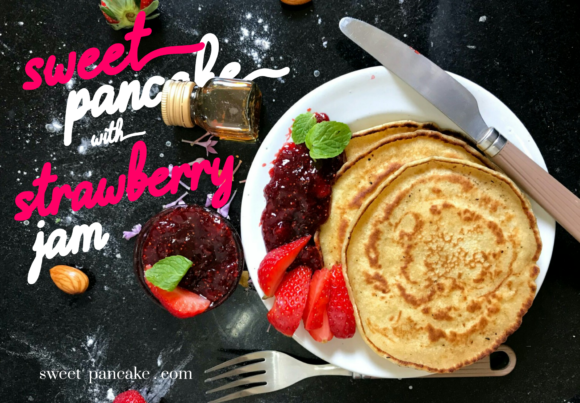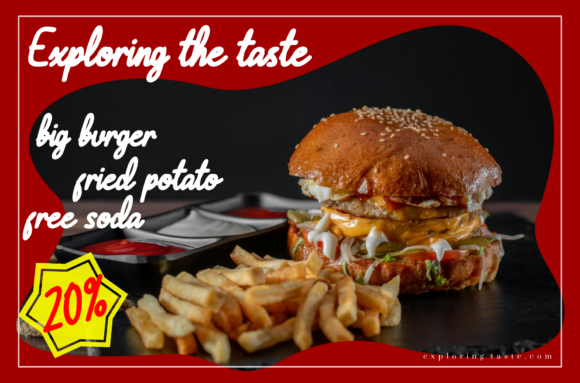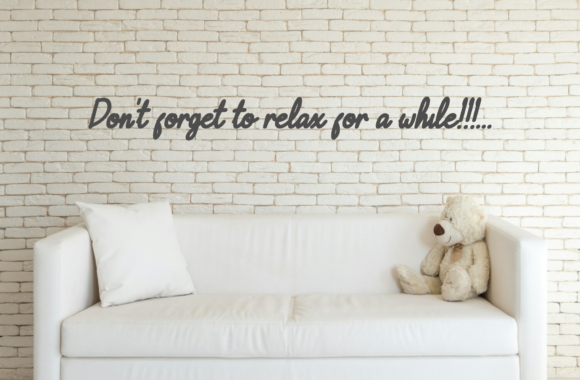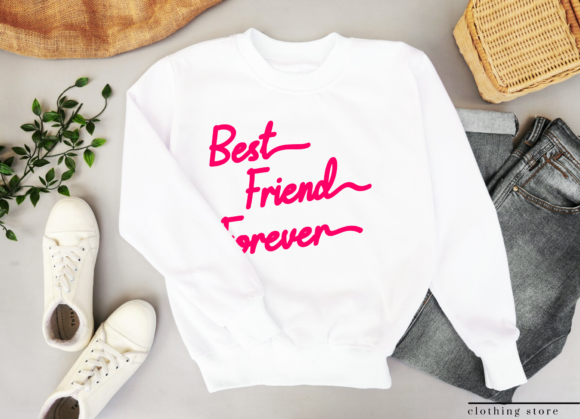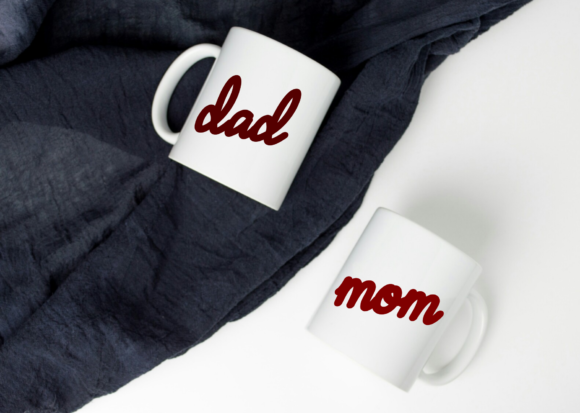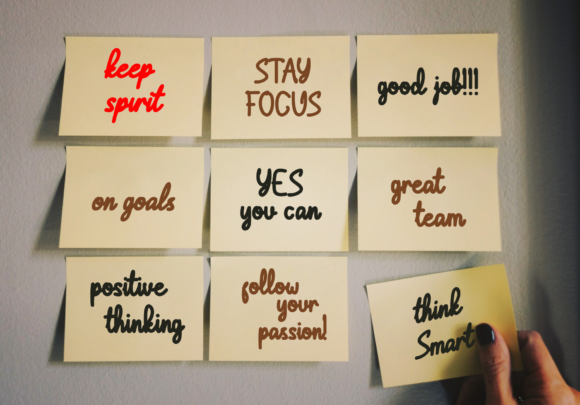
Introducing Dear Note Font: The Epitome of Elegance and Sophistication
In the realm of typography, few fonts manage to capture the essence of elegance and sophistication as Dear Note Font does. This stunning script font is a masterpiece of thin lettering and graceful strokes, designed to add a touch of luxury to any design project. Whether you’re a designer, crafter, or simply someone who appreciates the beauty of fine typography, Dear Note Font is sure to captivate your heart.
The Charm of Dear Note Font
Dear Note Font is a ravishing script font that exudes refinement and poise. Its thin lettering and delicate strokes evoke a sense of romance and whimsy, making it perfect for a wide range of design applications. From wedding invitations and stationery to social media posts and branding materials, Dear Note Font is the ideal choice for anyone looking to add a touch of sophistication to their designs.
One of the most exciting aspects of Dear Note Font is its versatility. This beautiful script font can be used in a multitude of design projects, including:
- Wedding Invitations: Create stunning wedding invitations that set the tone for a luxurious and unforgettable celebration.
- Stationery: Add a touch of elegance to your stationery, making it perfect for personal correspondence or business communications.
- Social Media Posts: Elevate your social media presence with eye-catching posts that showcase your brand’s personality and style.
- Branding: Use Dear Note Font to create a cohesive brand identity that exudes sophistication and refinement.
Why Choose Dear Note Font?
With so many fonts available, why choose Dear Note Font? Here are just a few reasons why this stunning script font stands out from the rest:
- Unique and Exclusive: Dear Note Font is a one-of-a-kind font that will set your designs apart from the crowd.
- Elegant and Refined: This beautiful script font is perfect for designs that require a touch of sophistication and luxury.
- Highly Versatile: Dear Note Font can be used in a wide range of design applications, from wedding invitations to social media posts.
- User-Friendly: This font is easy to use and pairs well with a variety of other fonts, making it perfect for designers of all skill levels.
Tips for Using Dear Note Font
To get the most out of Dear Note Font, here are a few tips to keep in mind:
- Pair with Bold Fonts: Combine Dear Note Font with bold fonts for a striking contrast that adds visual interest to your designs.
- Experiment with Colors: Try pairing Dear Note Font with a range of colors to find the perfect combination that complements your design.
- Use for Headings: Dear Note Font is perfect for headings and titles, adding a touch of elegance and sophistication to your designs.
| Font Name | Dear Note Font |
| Author | Type Graphy |
In conclusion, Dear Note Font is a stunning script font that is sure to captivate designers and crafters alike. With its thin lettering, graceful strokes, and endless design possibilities, this beautiful font is perfect for anyone looking to add a touch of elegance and sophistication to their designs. Whether you’re creating wedding invitations, stationery, social media posts, or branding materials, Dear Note Font is the ideal choice. So why wait? Fall in love with Dear Note Font today and take your designs to the next level!